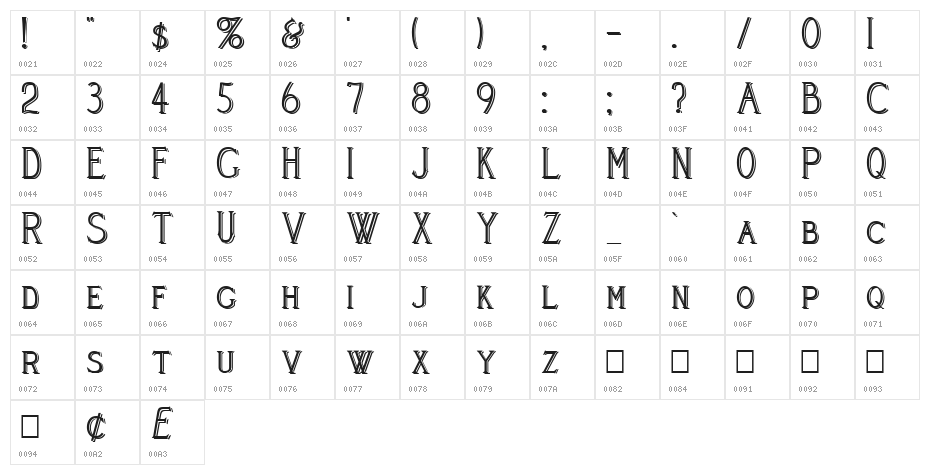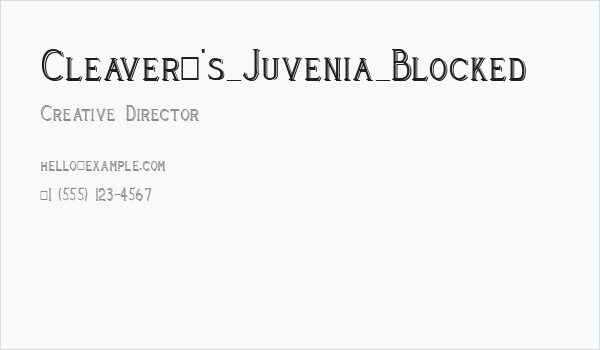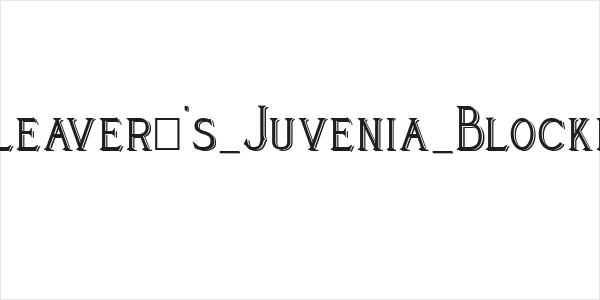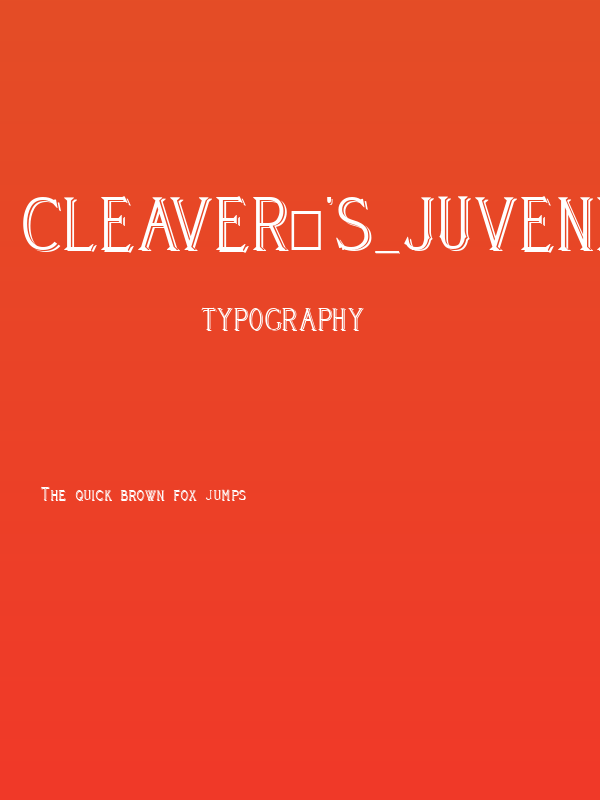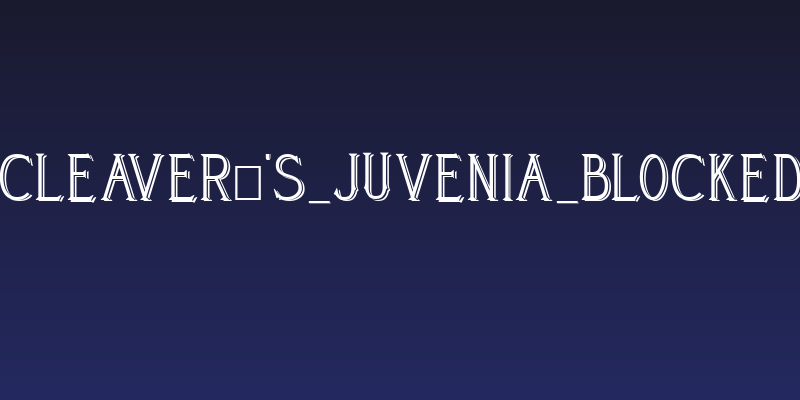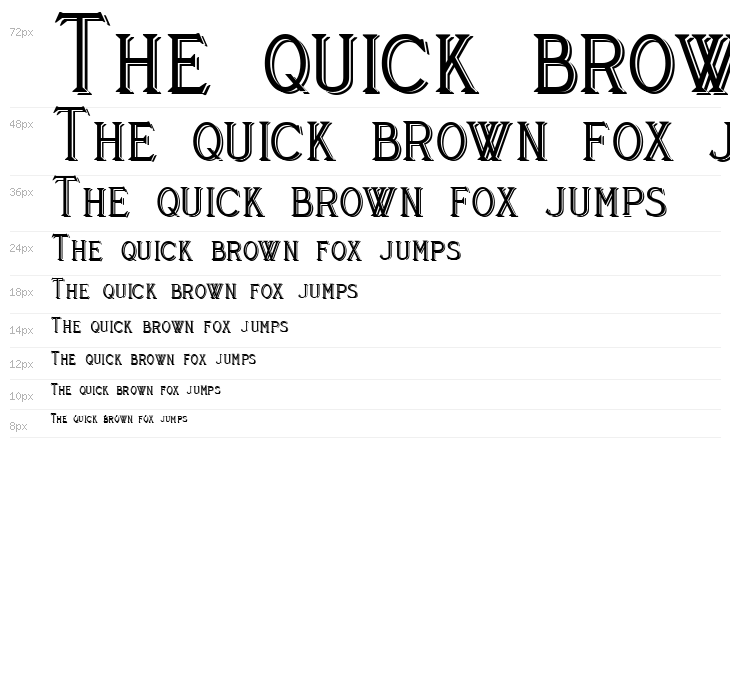
Cleaver's_Juvenia_Blocked Font
Cleaver's_Juvenia_Blocked Description
This font features a bold and striking design with a strong emphasis on vertical lines and sharp serifs. The characters are outlined, giving them a three-dimensional effect that adds depth and visual interest. The uppercase letters are particularly prominent, with a classic yet modern feel. The numbers and special characters maintain the same bold style, ensuring consistency across all elements. This font's unique design makes it stand out, making it suitable for projects that require a distinctive and memorable typeface.
| Proposed Projects | Ideal for headlines, posters, branding, and any design needing a bold statement. |